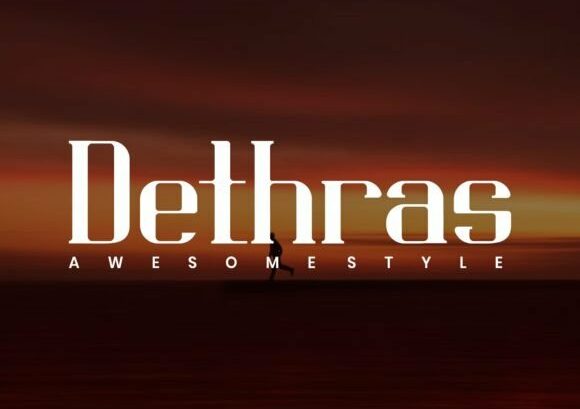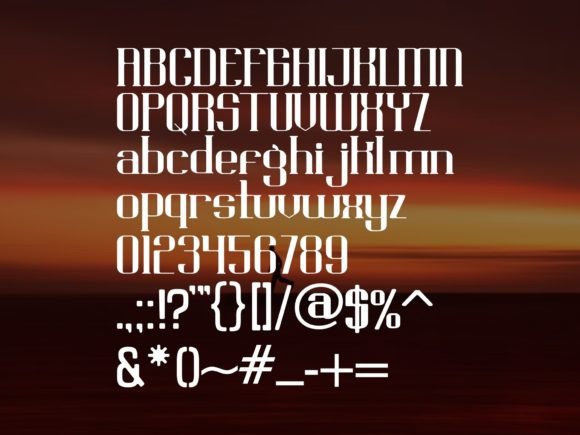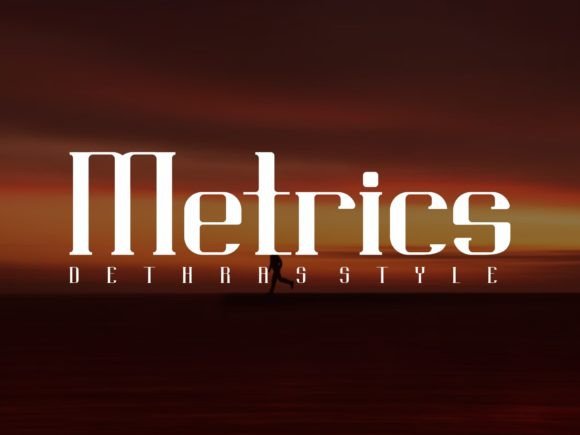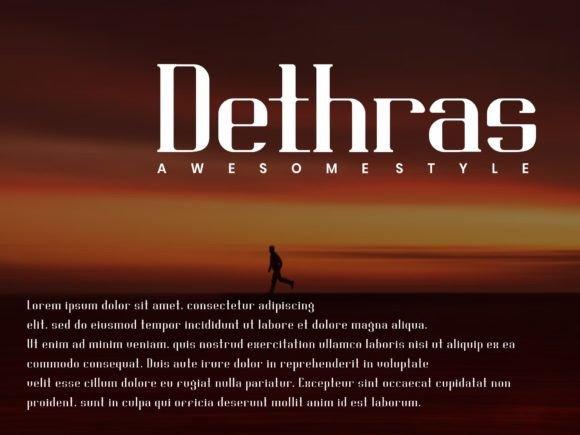
Dethras Font
DETHRAS FONT SPECIMEN
Dethras is a minimalist, elegant, and clean serif typeface designed to be used as a display slab serif. It adapts wonderfully in contexts such as designing labels for perfumes, cosmetics, magazine covers, posters, manifests, flyers, social posts, and fashion. Use it in your creations so you can notice how it makes your projects become alive!